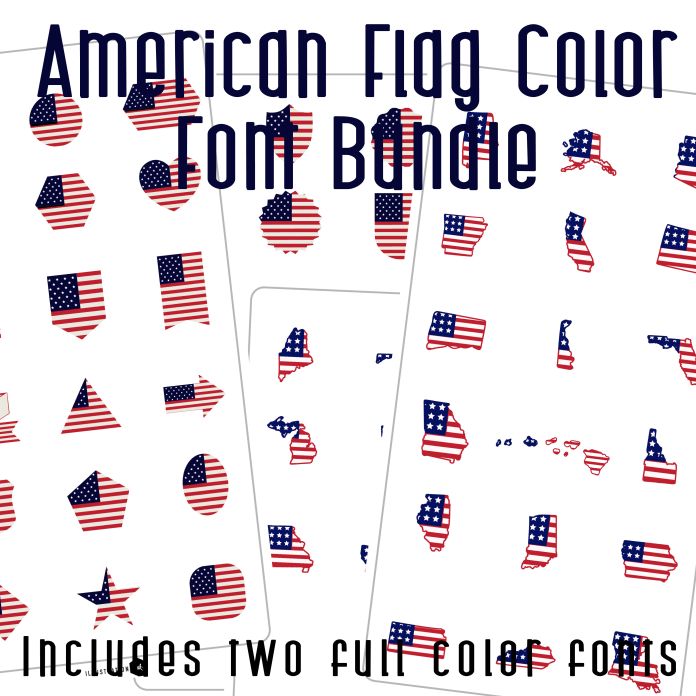
This bundle includes two full color dingbat fonts for one low price! With two dingbats you get 72 total images with 50 states with flags and 26 different American Flag designs. Both color fonts are perfect for Independence day and patriotic cards, crafts, gifts, decor, classrooms, planner stickers, scrap book pages and more!
A full-color font stores svg data inside an Open Type font file. This font will look black if not used in a program like Silhouette Studio which is compatible. Images can be pulled apart with some vector programs like Illustrator and cut with your cutting machine. Glyphs on the States with Flags Color Font are A-Z and a-x.